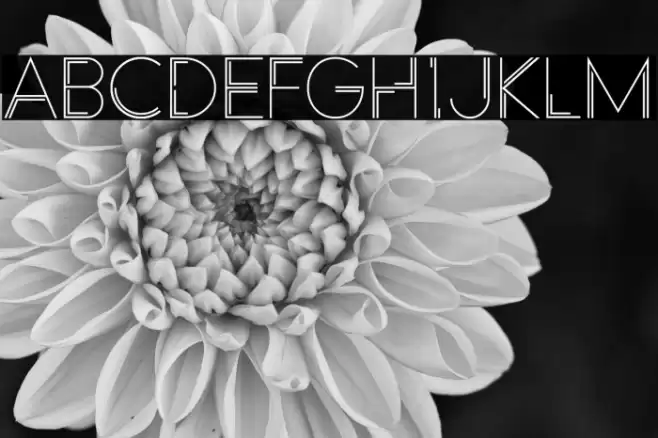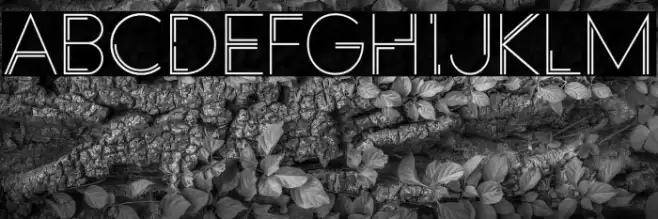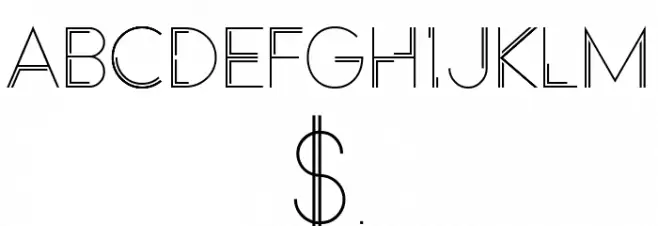
Racheto Font
Racheto Description
This font features a modern and geometric design with clean, straight lines and sharp angles. The characters are constructed with a double-line style, giving them a unique and sophisticated appearance. The uppercase letters are uniform in height, while the lowercase letters maintain a consistent style that complements the uppercase. The font's minimalistic and structured design makes it suitable for contemporary and stylish applications. Its distinct look is achieved through the use of parallel lines that create a sense of depth and dimension, making it stand out in any design project.
A modern, geometric font with a double-line style and sharp angles from Regular fonts.
- Proposed Projects: Ideal for branding, logos, fashion magazines, and modern art posters.